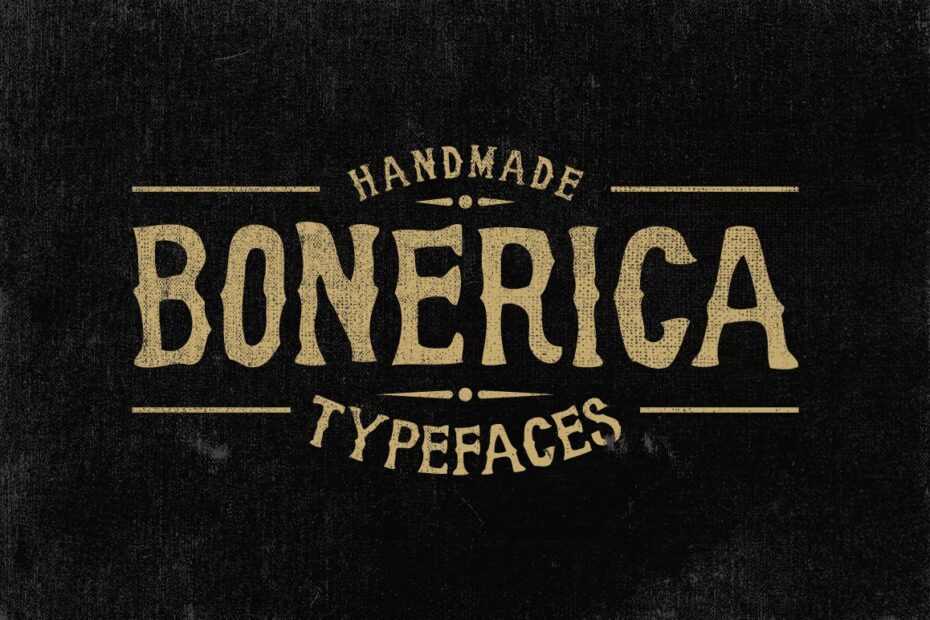
Do you remember that moment when a font just clicked, and everything fell into place? For designers, this moment is a rare gem. It’s the spark that ignites a new idea, a fresh perspective, and a whole new world of possibilities. And, for many of us, that moment often comes when we stumble upon the perfect font.
Enter the Bonerica Font, a beautifully hand-crafted serif font designed to elevate your designs. With its versatility and charm, Bonerica Font is perfect for a wide range of projects, from logos and greeting cards to posters and t-shirt designs. Whether you’re a seasoned designer or just starting out, this font is a valuable addition to your toolkit. It’s the perfect companion for bringing your creative ideas to life.
Bonerica Font Key Features
- Unique Characteristics: Bonerica Font features a unique blend of modern and vintage elements, with intricate details and ornate flourishes
Bonerica Font Review
Overall, I think Bonerica Font is an interesting addition to the world of typography. There are a few aspects where it truly shines ✨
- Uniqueness: Bonerica Font stands out with its quirky, hand-drawn feel that adds a touch of personality to any design.
- Customizability: The font comes with a variety of weights and styles, making it easy to adapt to different design contexts.
- Readability: Despite its ornate appearance, Bonerica Font is surprisingly readable, even at smaller sizes.
However, there are some limitations to consider ⚠️
- Lack of coherence: The font’s various weights and styles can sometimes feel disconnected, making it challenging to maintain a consistent look.
- Overuse: Bonerica Font’s unique charm can quickly become overwhelming if overused, so be sure to balance it with other fonts.
Overall, I think Bonerica Font is a great choice for designers looking to add some visual interest to their projects. While it may not be the most conventional font, its unique character can be a real asset in the right situations.
Getting the Most Out of Bonerica Font
To get the most out of Bonerica Font, use it in combination with bold or italic styles to create visual interest.
Use it for headings, titles, or emphasis in your designs.
Experiment with different font sizes to create a balanced layout.
Bonerica Font is suitable for a wide range of applications, including:
– Headings and titles in designs
– Emphasis in text
– Digital products and interfaces
– Print materials and marketing materials
Alternatives to Bonerica Font
Playfair Display is a high-end serif font ideal for luxury brands and high-end design projects. It’s a great alternative to Bonerica Font for those looking for a sophisticated, elegant feel. While Bonerica Font is more modern and geometric, Playfair Display is more traditional and ornate.
Montserrat is a modern sans-serif font perfect for urban and industrial designs. It’s a great choice for designers looking for a clean, minimalist aesthetic. Unlike Bonerica Font, Montserrat is more geometric and lacks the rounded edges of Bonerica Font.
Anton
Anton is a modern script font ideal for creative and artistic projects. It’s a great alternative to Bonerica Font for those looking for a unique, hand-written feel. While Bonerica Font is more geometric and structured, Anton is more fluid and expressive.
Great Vibes is a modern script font perfect for creative and artistic projects. It’s a great choice for designers looking for a fun, playful aesthetic. Unlike Bonerica Font, Great Vibes is more fluid and expressive, with a more relaxed feel.